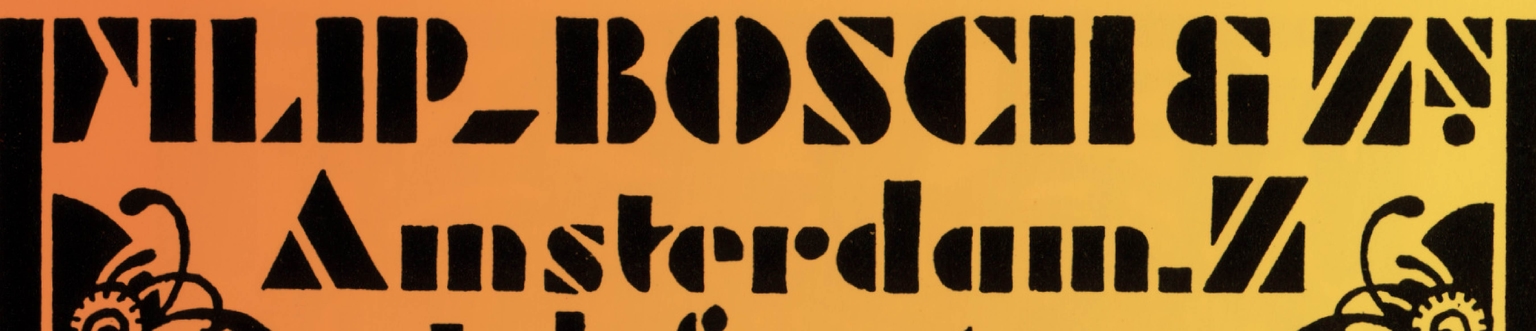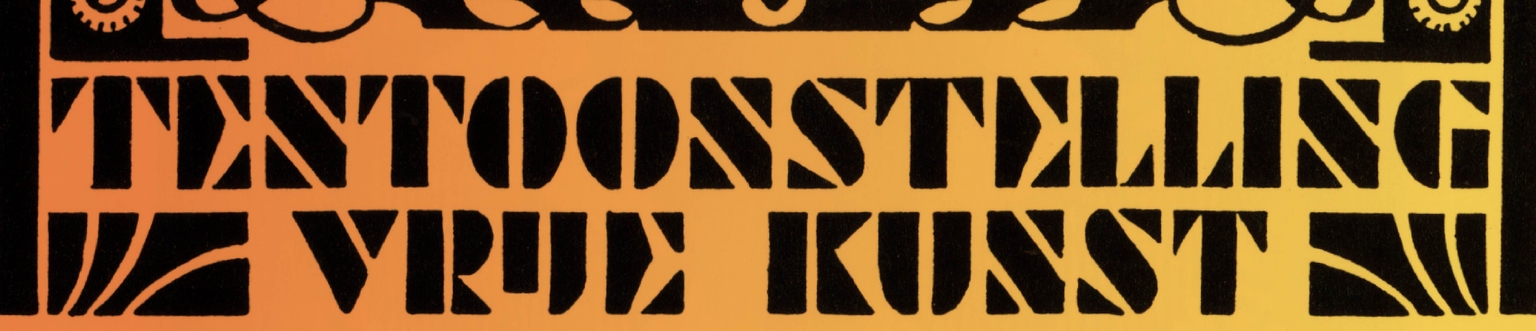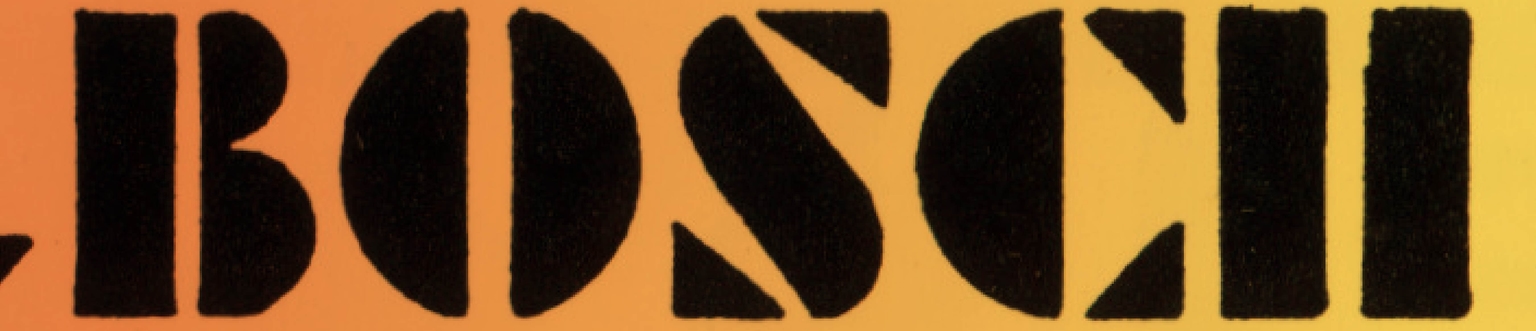
Stencilex
Stencilex is a radical display typeface inspired by the eye-catching stencil lettering featured in a vintage advertisement for the Dutch firm Filip Bosch en Zo. Discovered by Ramiro Espinoza while researching early 20th-century Dutch graphic design, the original letters stood out for their striking geometry, inventive detailing, and subtle echoes of the Amsterdam School aesthetic. The original designer of the lettering remains anonymous, but their work reflects a refined sensibility and a clear understanding of modular form.
Intrigued by the originality and typographic potential of the forms, Espinoza set out to adapt the alphabet into a fully functioning typeface. The result is Stencilex—a design that blends utilitarian stencil construction with expressive, almost architectural shapes. Its modularity and visual rhythm make it ideal for branding, brochures, websites, signage, and posters where character and structure are equally important.